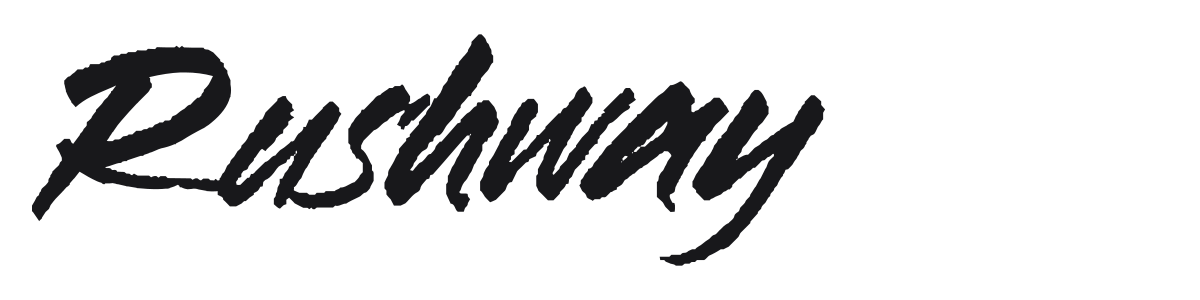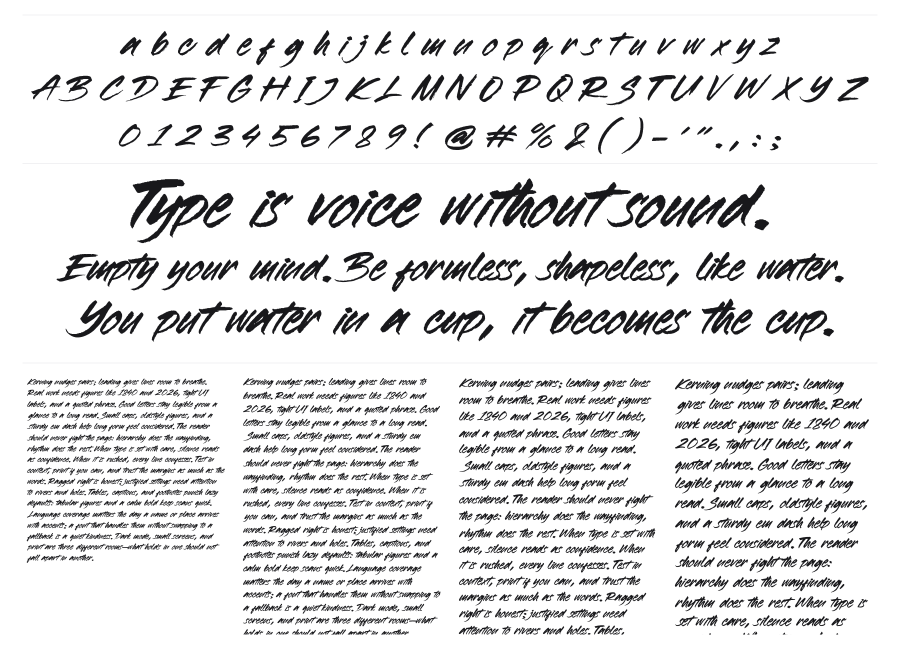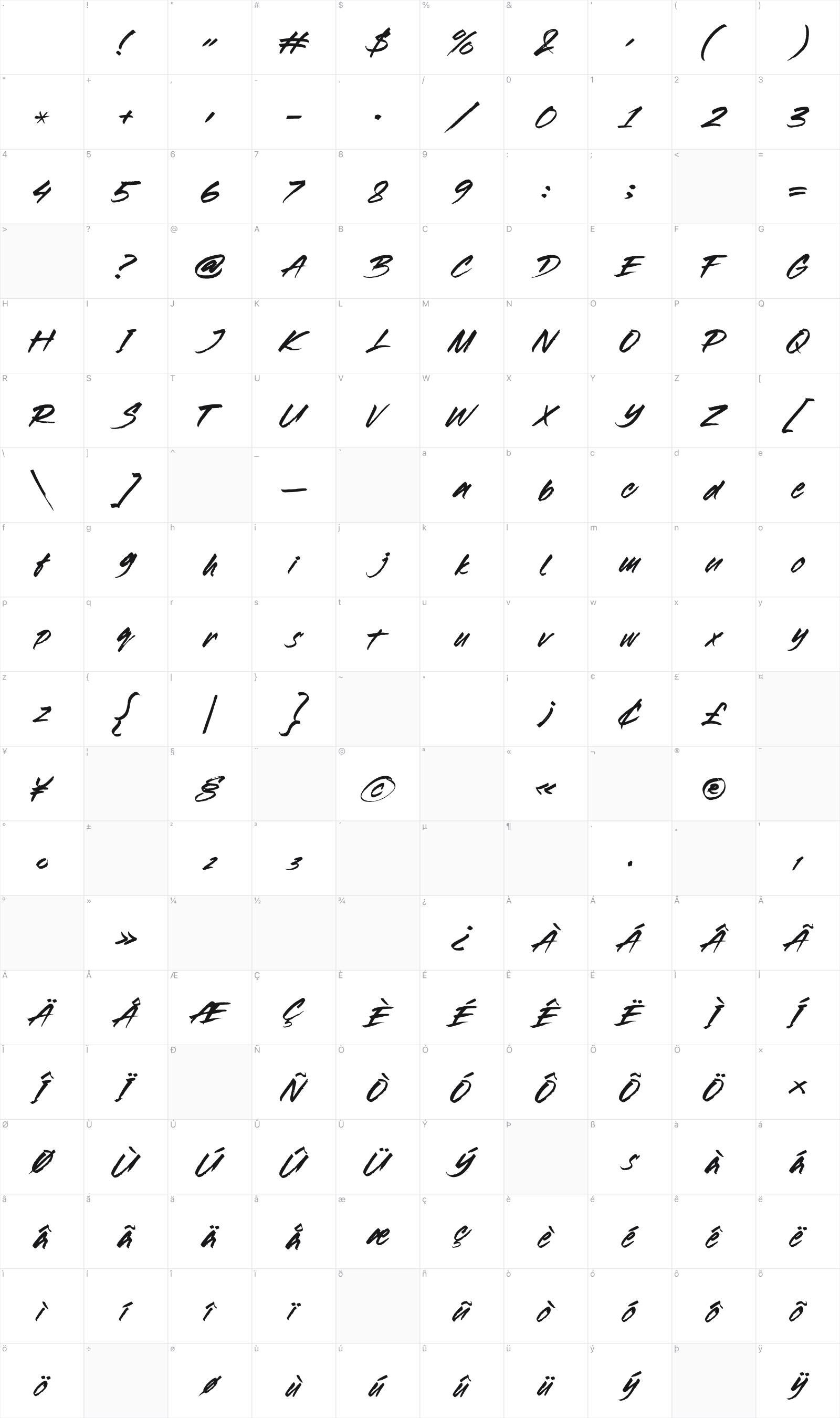
Rushway
by Excellent Ritma Florendia
Rushway is a bold, fast-moving brush script built on rebel energy and ink-drag texture. Heavy downstrokes bleed into razor-thin hairline connections, creating dramatic contrast that commands attention at large sizes. It suits posters, apparel, and editorial headlines where personality matters more than restraint.